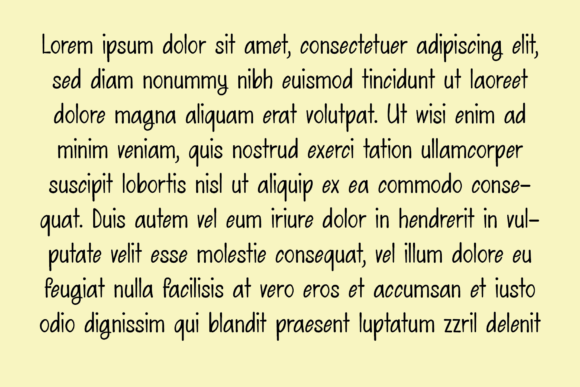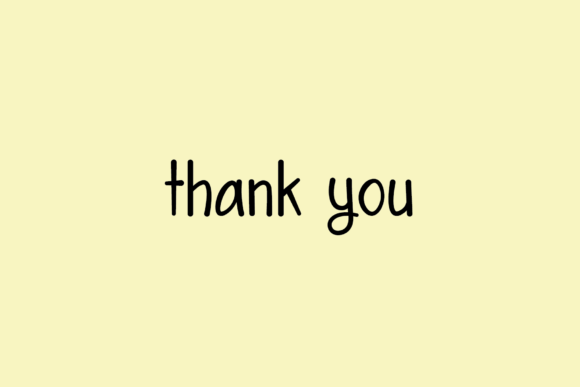
Introduction to Lemon Land Font
As you sit at your desk, surrounded by colorful papers, pens, and a steaming cup of coffee, you’re suddenly hit with a burst of inspiration for your next creative project. The words begin to flow, and your imagination runs wild with ideas for a fun and unique design. One crucial element can make all the difference: the perfect font. And that’s where the Lemon Land Font comes in – a delightful, handwritten typeface that’s sure to add a touch of whimsy to your work.
Whether you’re designing a logo, creating a wedding invitation, or simply adding a decorative touch to your magazine, the Lemon Land Font is an invaluable design resource that’s both fun and easy to read. With its high-quality, transparent background and free download option, this font is a must-have for any designer looking to add a little extra oomph to their work.
Key Features of Lemon Land Font
- High-quality, hand-drawn design ideal for creative projects and design resources.
- Unique, whimsical style featuring a transparent background, making it perfect for use on digital and print materials.
- Resolution-independent, ensuring crisp and clear typography across different resolutions and screen sizes.
- Designed for use in a variety of creative projects, including logos, branding, and advertising materials.
Honest Review: Lemon Land Font
As a designer, I’m always on the lookout for high-quality fonts that can elevate my creative projects. The Lemon Land Font caught my attention, and I’m excited to share my honest review.
- ✨ Beautiful hand-drawn style: The font has a unique, hand-drawn feel that adds a touch of personality to any design.
- ✨ High-quality vectors: The font files are well-crafted and scalable, making it perfect for various design applications.
- ⚠️ Limited character set: The font only includes uppercase and lowercase letters, with a limited set of punctuation marks.
Overall, I’m impressed with the Lemon Land Font’s unique style and high-quality vectors. While it has some limitations, it’s still a valuable design resource that can add a touch of personality to your creative projects. If you’re looking for a free font with a hand-drawn feel, I’d definitely recommend checking it out.
Lemon Land Font is a versatile design resource that can be used in a variety of creative projects, including:
- Infographics
- Business cards
- Wedding invitations